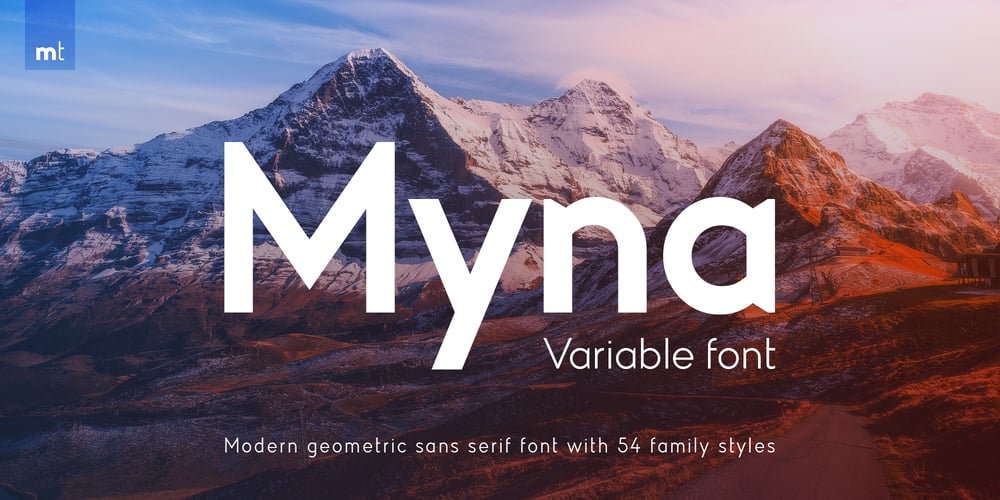
Myna Font Family was designed by Danijel Poldrugač and published by Milatype. Myna contains 55 styles and family package options. Myna is a modern geometric sans font family, primarily designed to be a lightweight web font. But is also suitable for any other purpose, such as brand design or editorial design, or any other use case that require clean and elegant geometric sans font.It contains 54 styles, divided into Condensed, Regular and Expanded weight, with 18 styles in each (9 upright, and 9 italic styles), ranging from Thin to Black styles, and are all available in one variable font. All styles are manually TrueType hinted to produce sharp glyph outlines for easier reading at small text sizes.And all contain OpenType features: Fractions, Kerning, Ordinals, Scientific Inferiors, Subscript, Superscript.